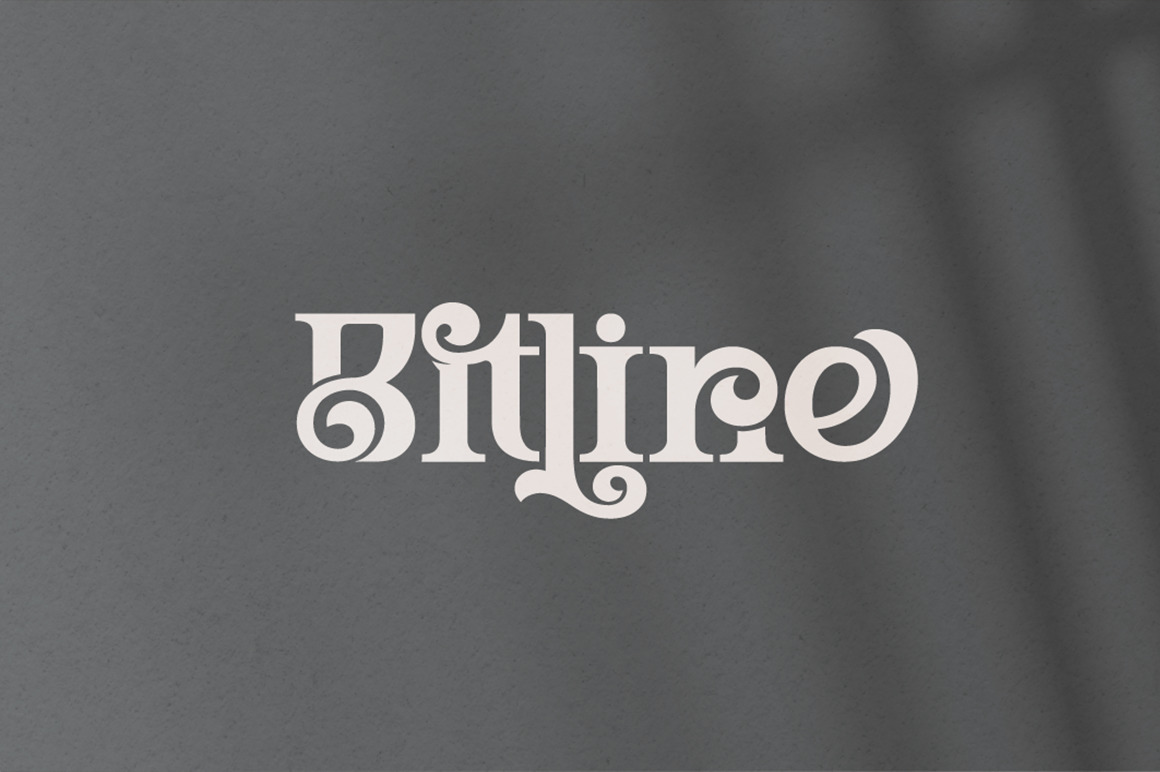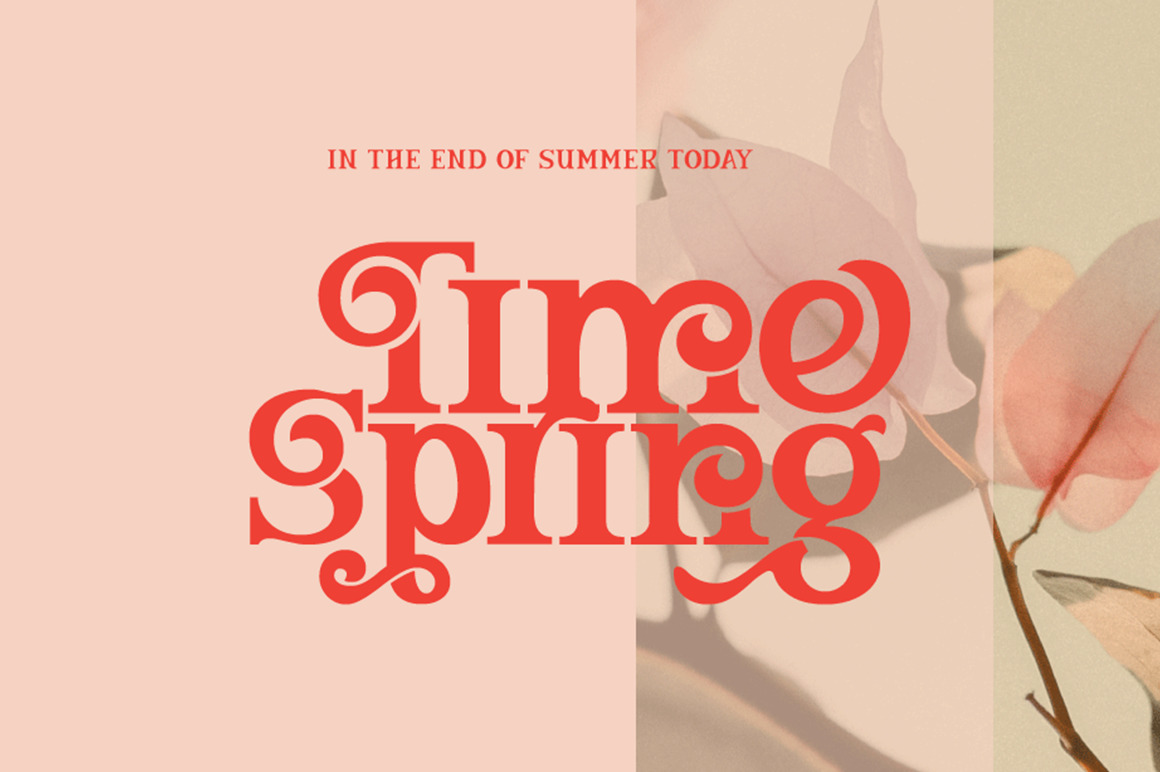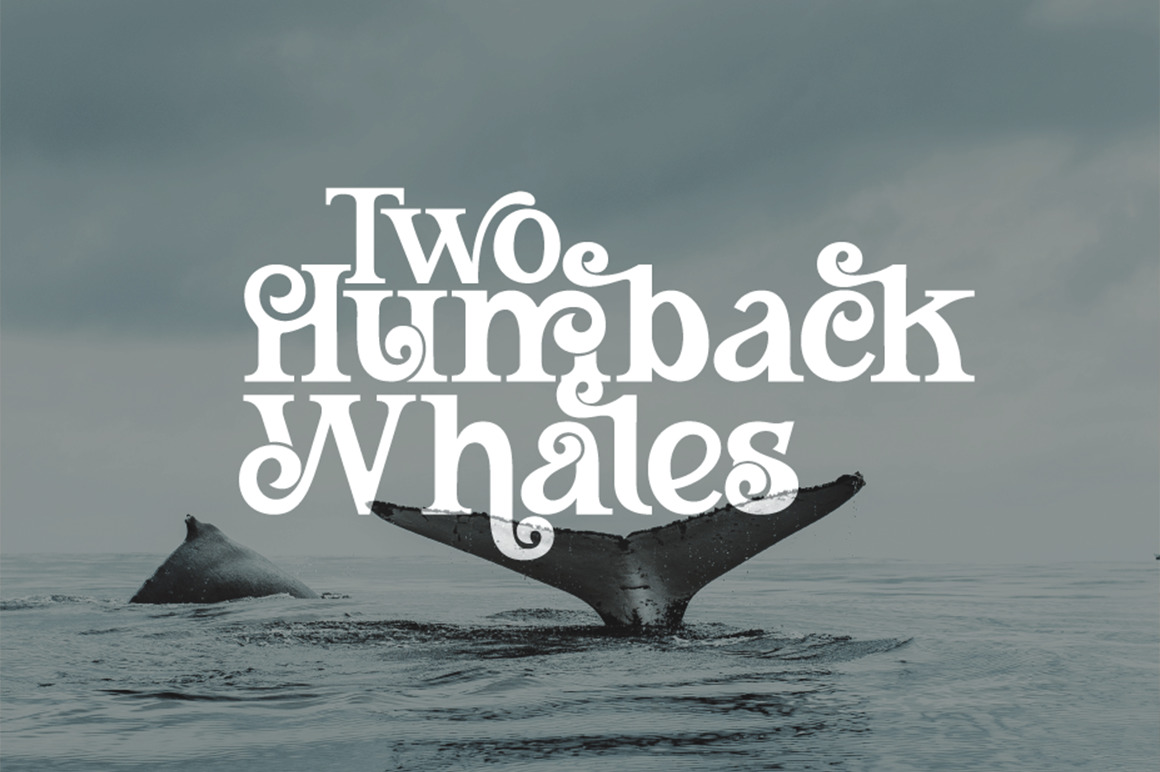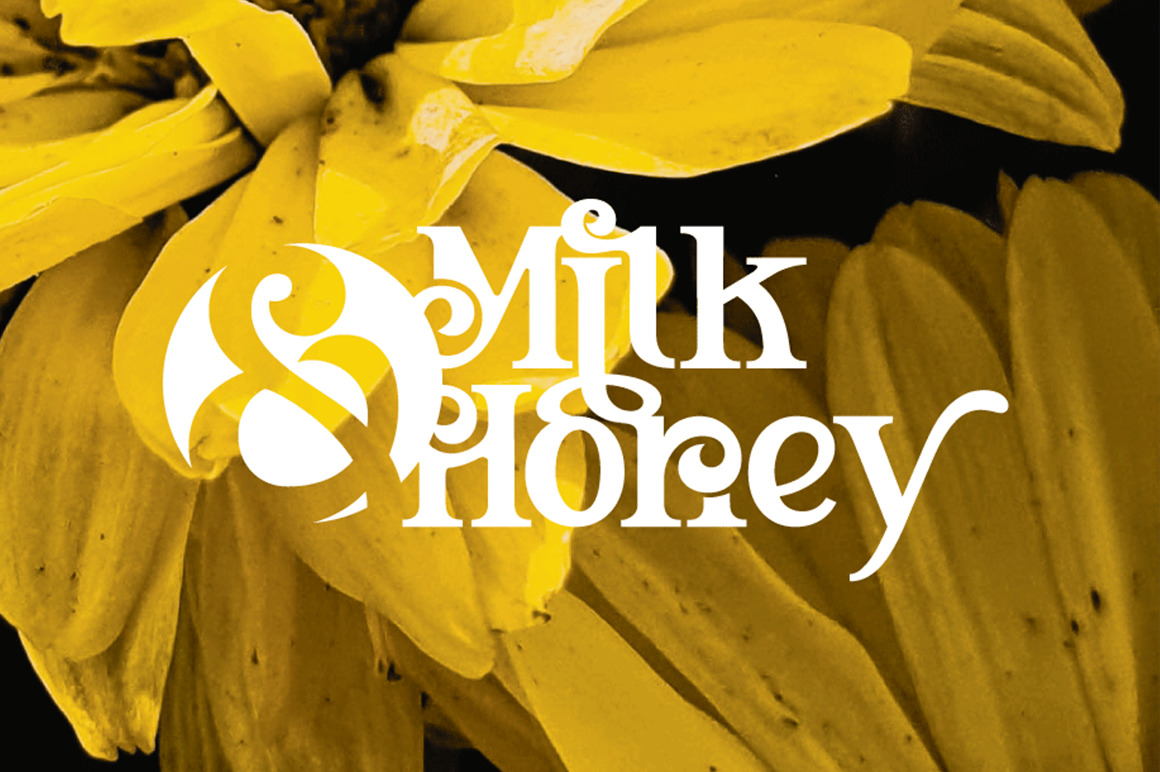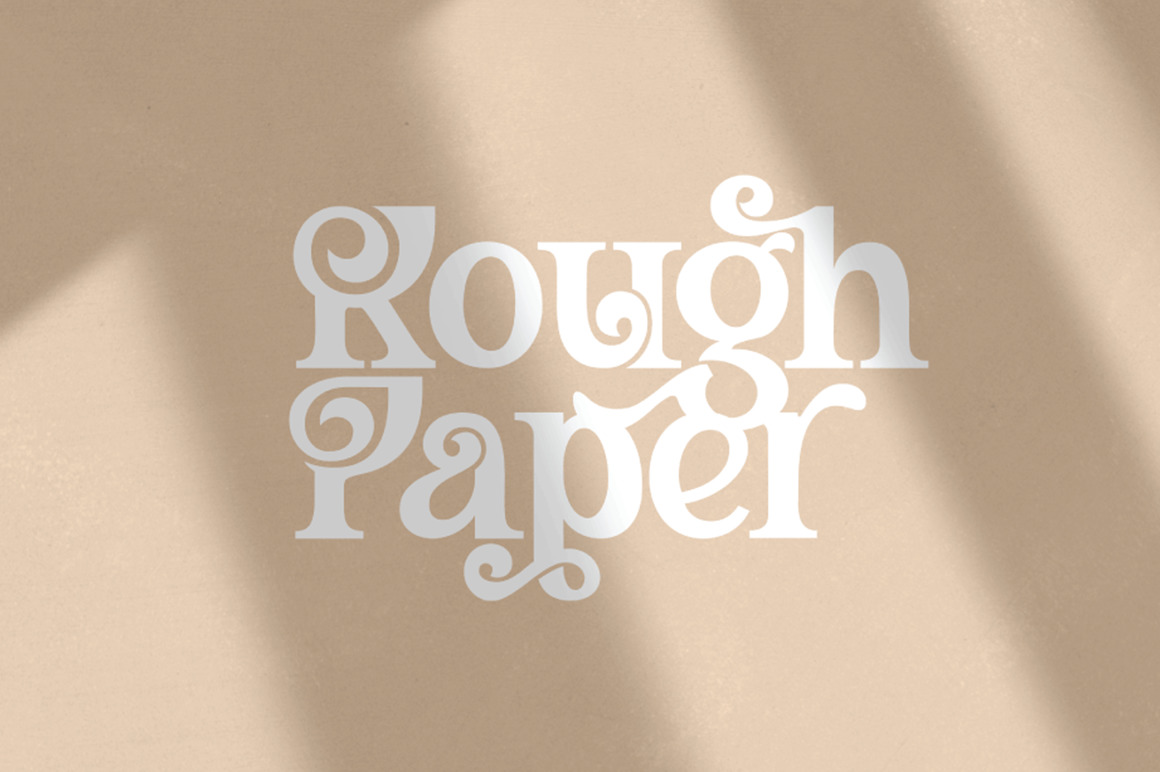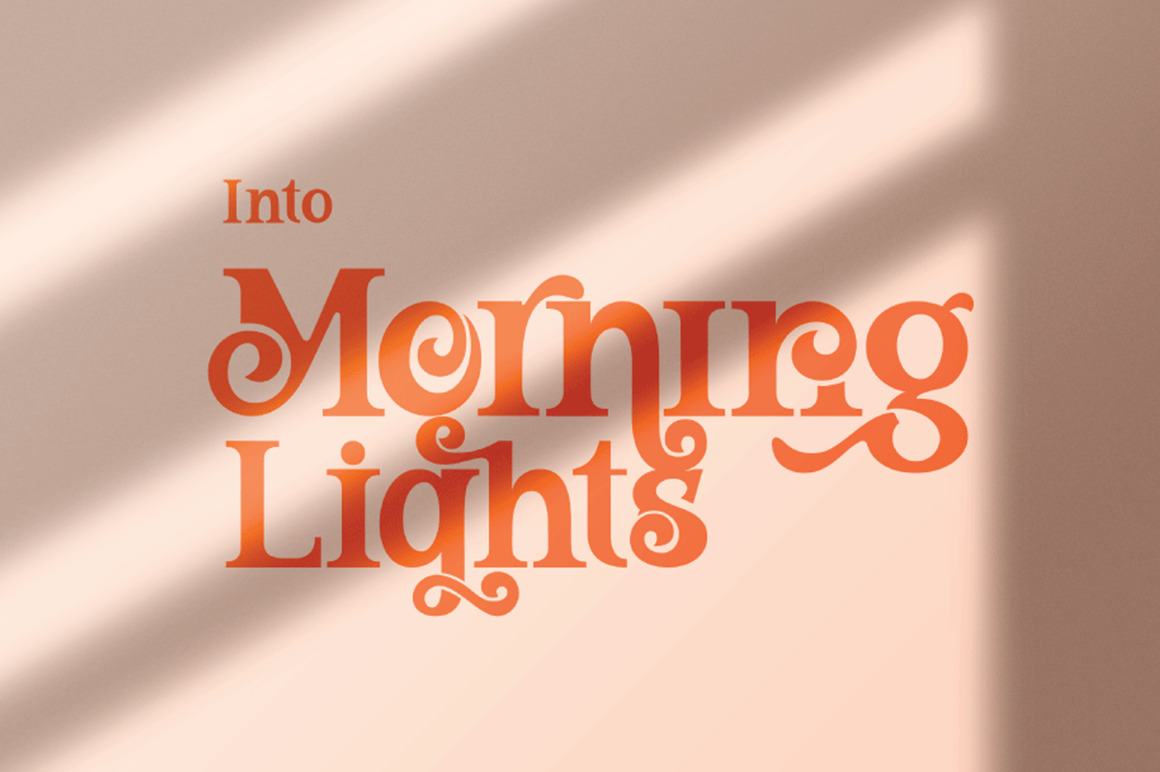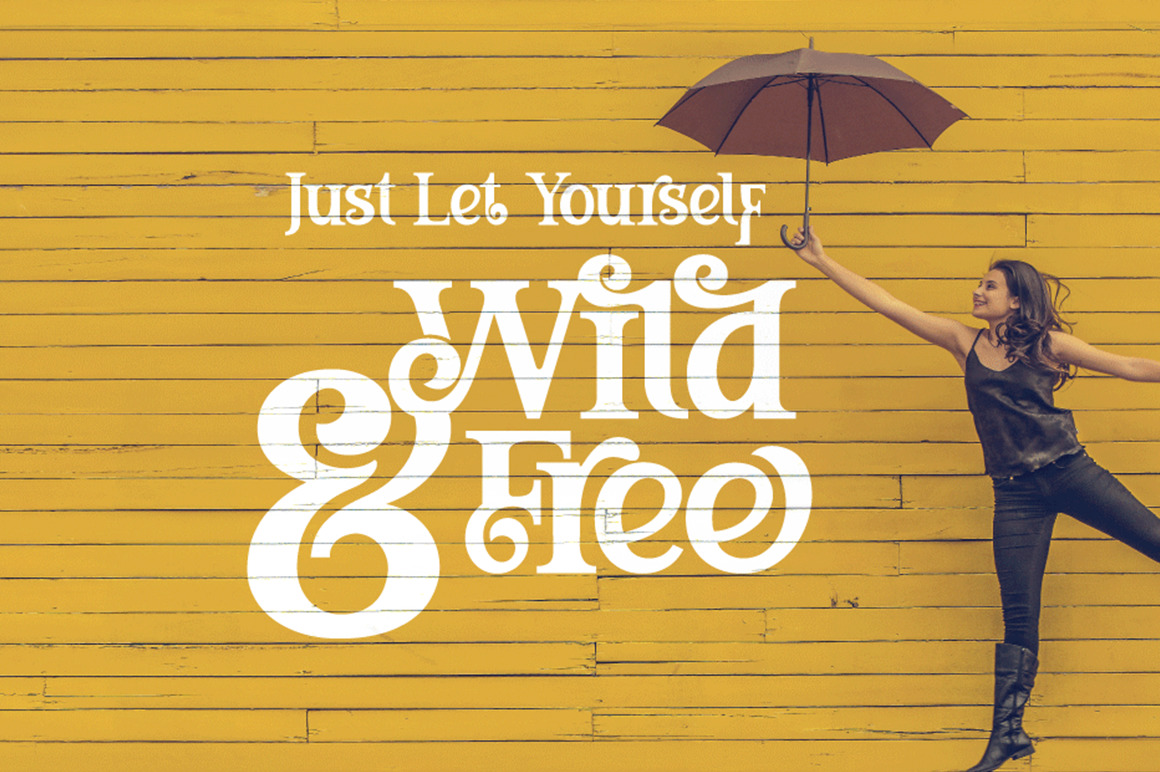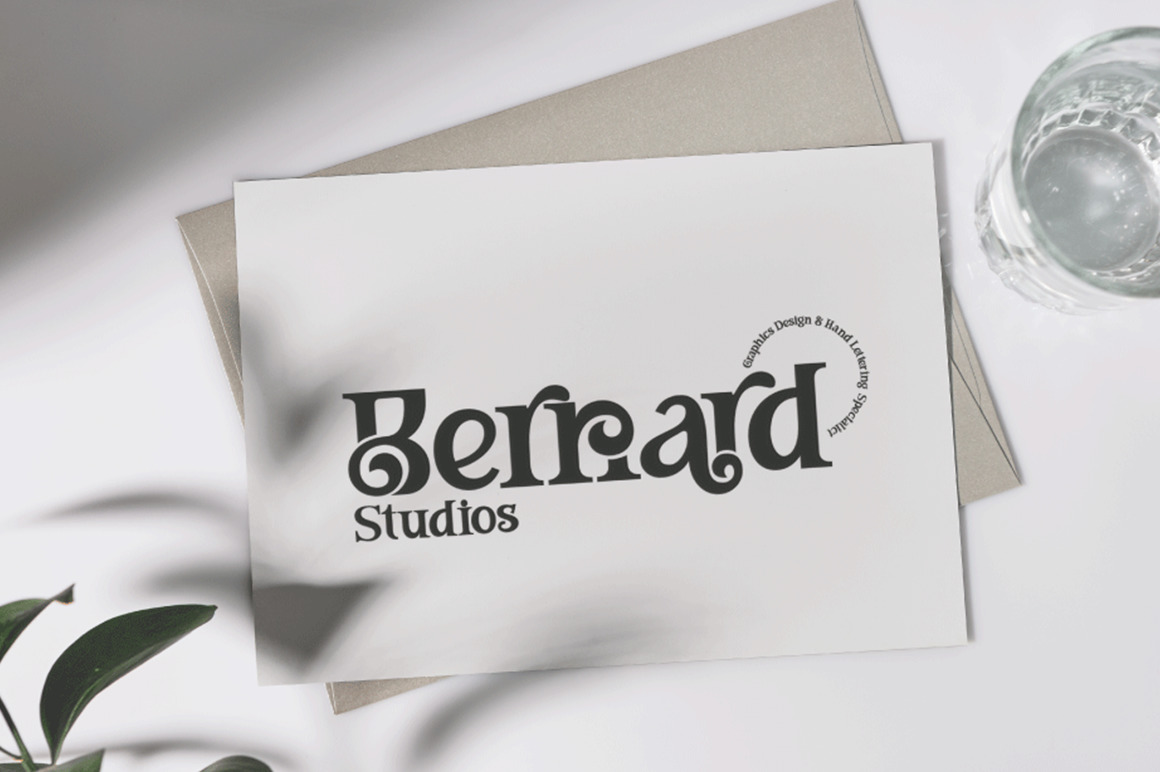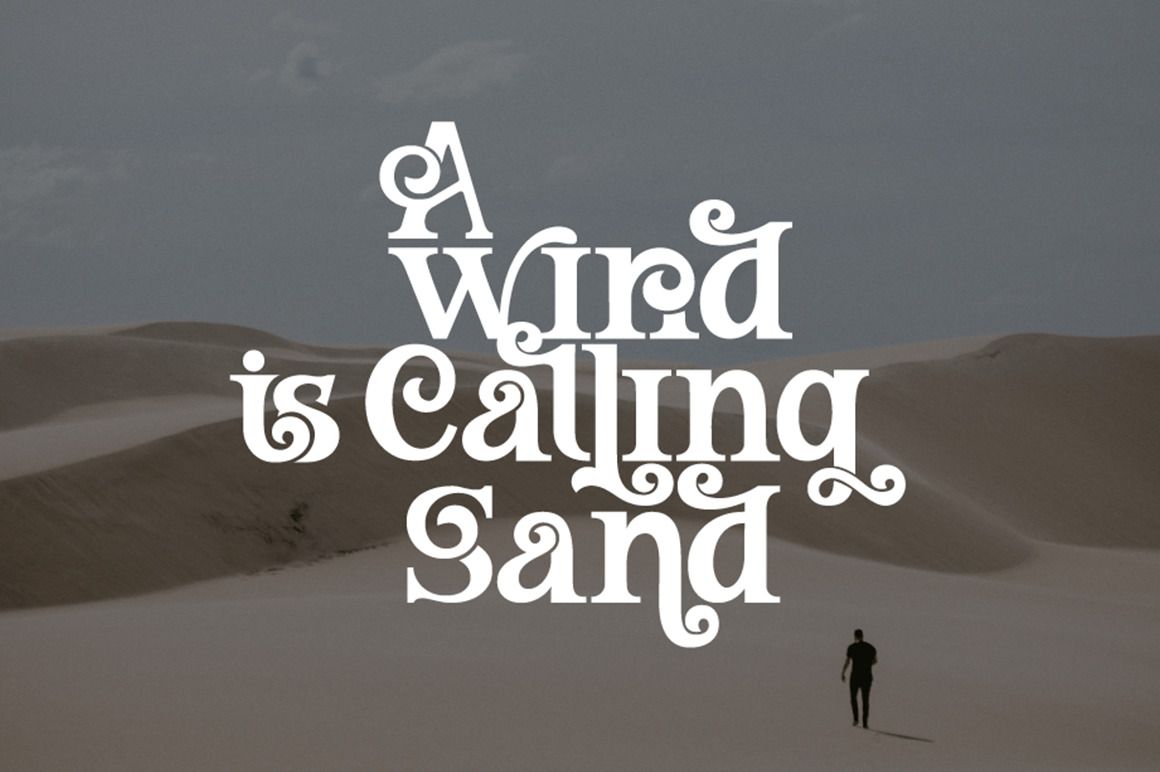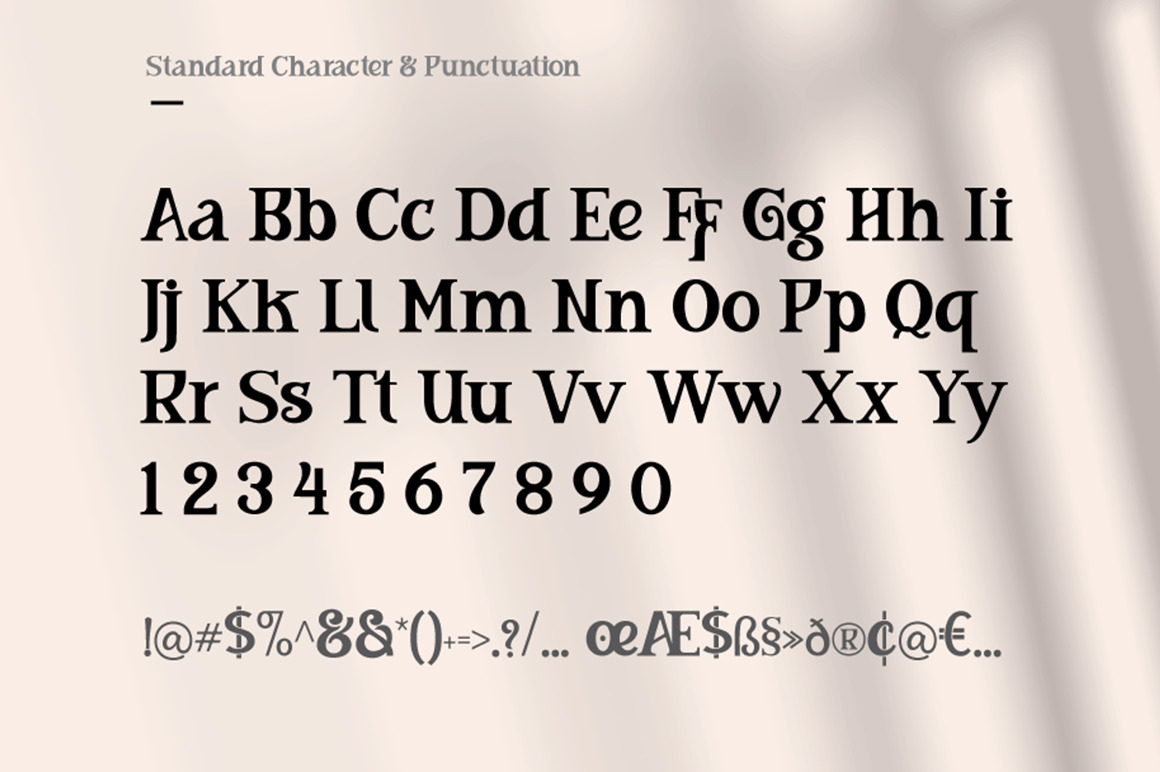
Bitline Swirly Font
Bitline is bold swirly font. comes with more alternate style each glyphs and ligature. The font is unique and modern vintage look. This is an adaptable font. Suitable for any project types, from magazine header, wedding invitation, branding design, poster or flyer header design, until logo tagline and so much more.
- All Character Set
- Numeral and Punctuations
- Alternates And Ligatures
- Multilingual